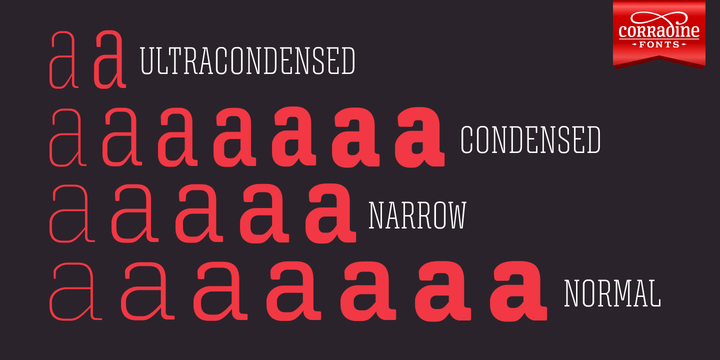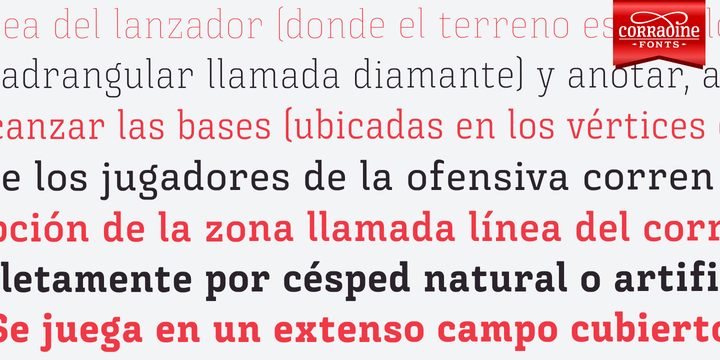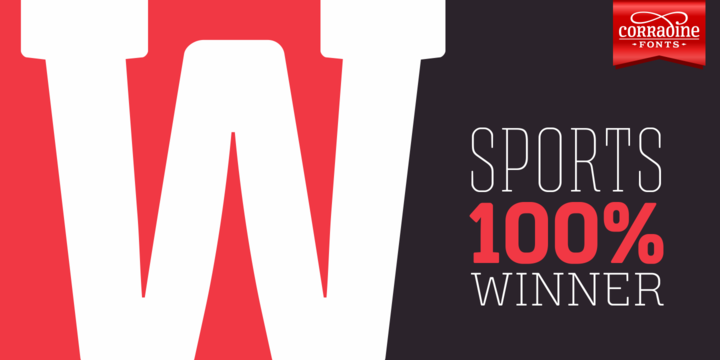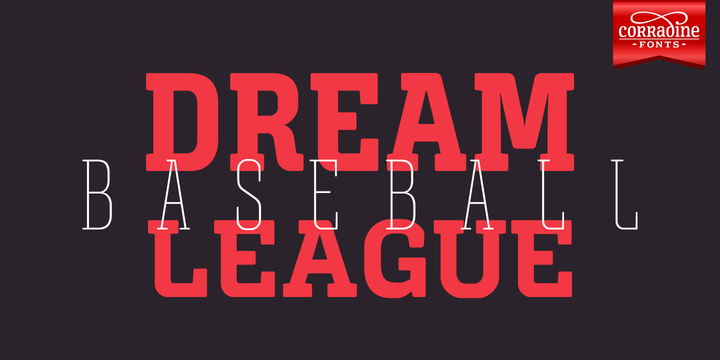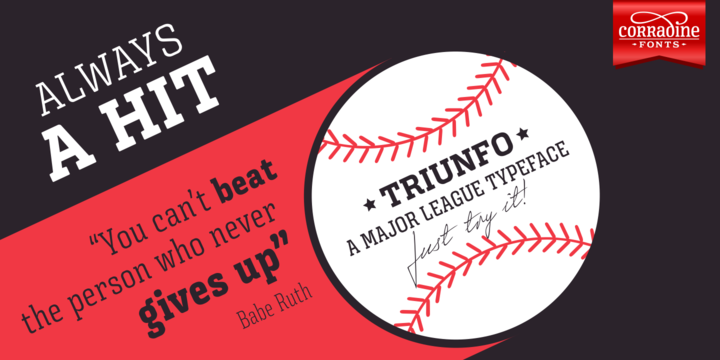
Triunfo Family: A Versatile and Beautiful Slab Serif Font
The Triunfo Family is a beautiful slab serif font collection that offers designers a wide range of creative possibilities for various purposes such as headlines, book covers, posters, invitations, and much more.
Key Features of Triunfo Family
- Versatility: Suitable for multiple design applications
- Creative Potential: Perfect for designers who like to express their creativity
- Aesthetic Appeal: Beautiful design that enhances visual impact
Applications
Triunfo Family excels in various design projects, including:
- Headlines and titles
- Book covers and editorial design
- Posters and promotional materials
- Invitations and stationery
- Branding and logo design
Comparison with Other Slab Serif Fonts
While Triunfo Family offers its unique charm, it shares the bold and impactful characteristics of other popular slab serif fonts. For instance, like the Tecnica Slab Family, Triunfo Family provides a strong presence in designs. However, it may offer more versatility compared to more specialized fonts like Klub Katz, which has a more distinct personality.
When using Triunfo Family, consider the following:
- Experiment with different sizes to create hierarchy in your designs
- Pair with complementary sans-serif fonts for contrast
- Use in both display and body text applications to showcase its versatility
Triunfo Family is an excellent choice for designers looking for a versatile and beautiful slab serif font. Its ability to adapt to various design contexts while maintaining a strong visual presence makes it a valuable addition to any typography toolkit. Whether you’re working on logo designs, poster designs, or editorial layouts, Triunfo Family offers the flexibility and aesthetic appeal to elevate your projects.
Explore the Triunfo Family to discover how its beautiful design and versatility can enhance your creative work across a wide range of applications.